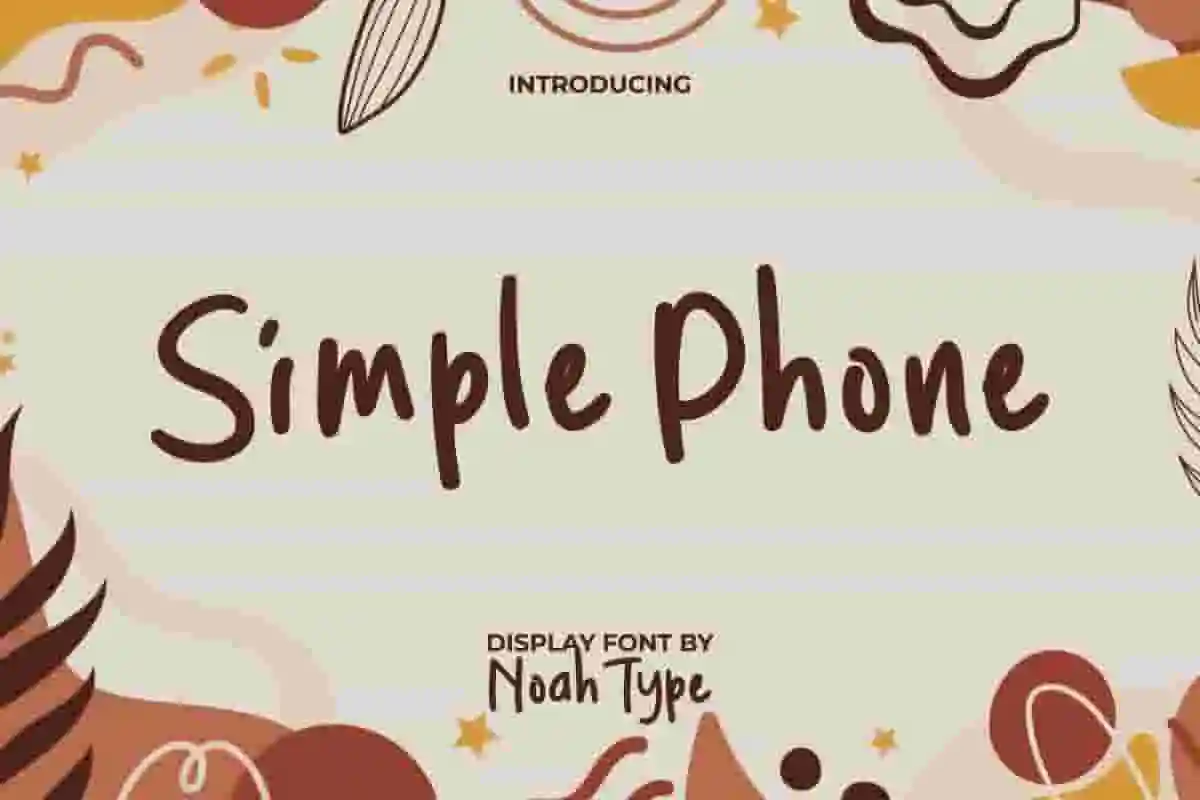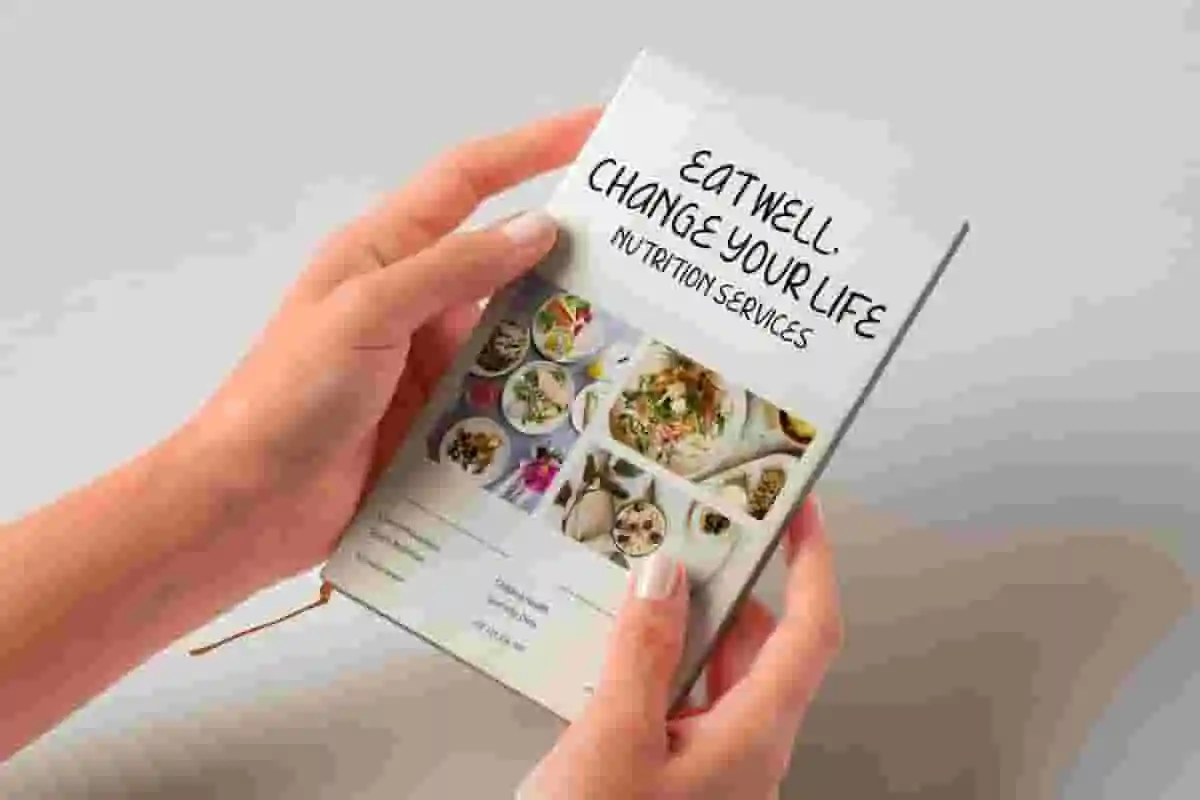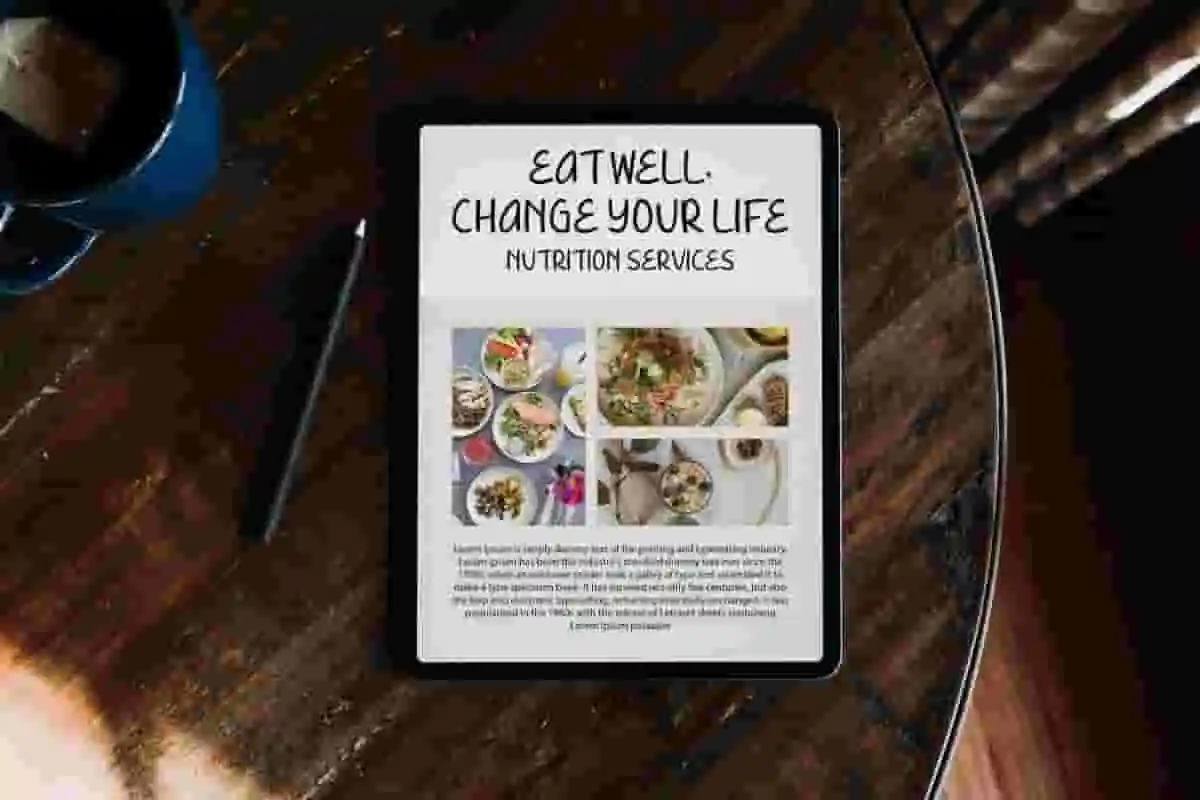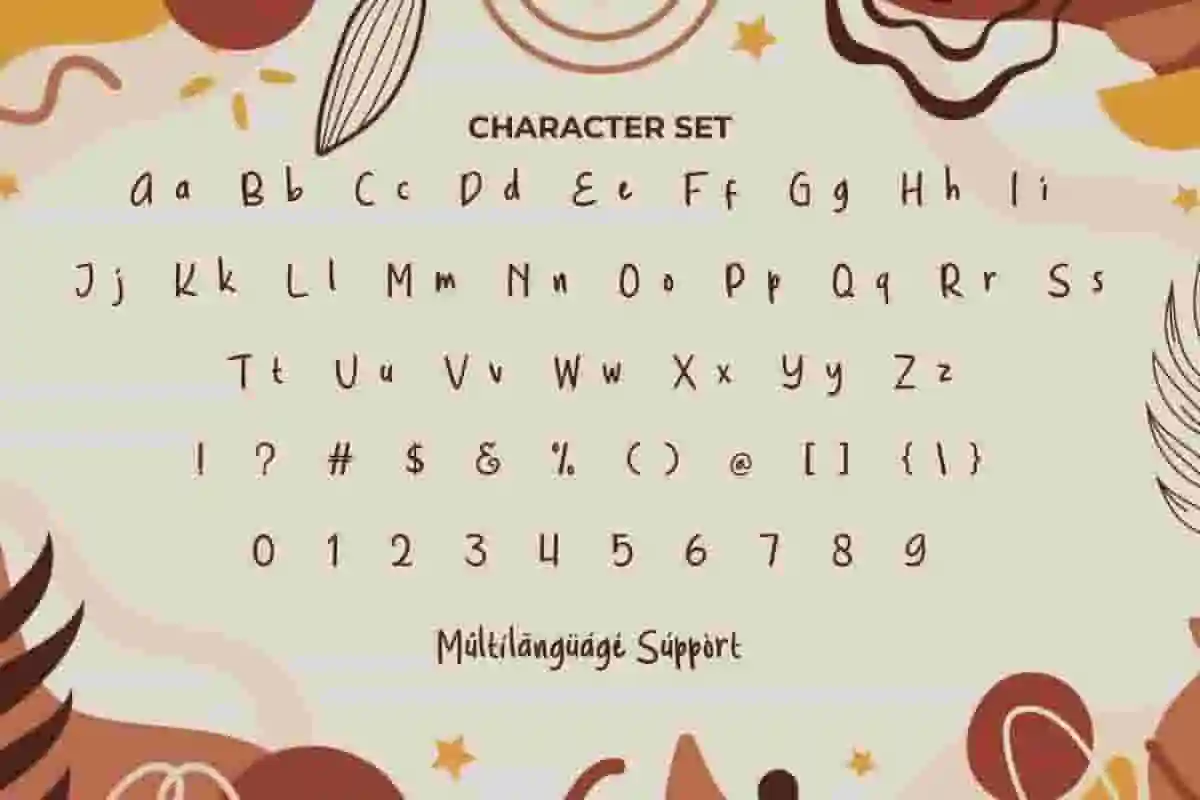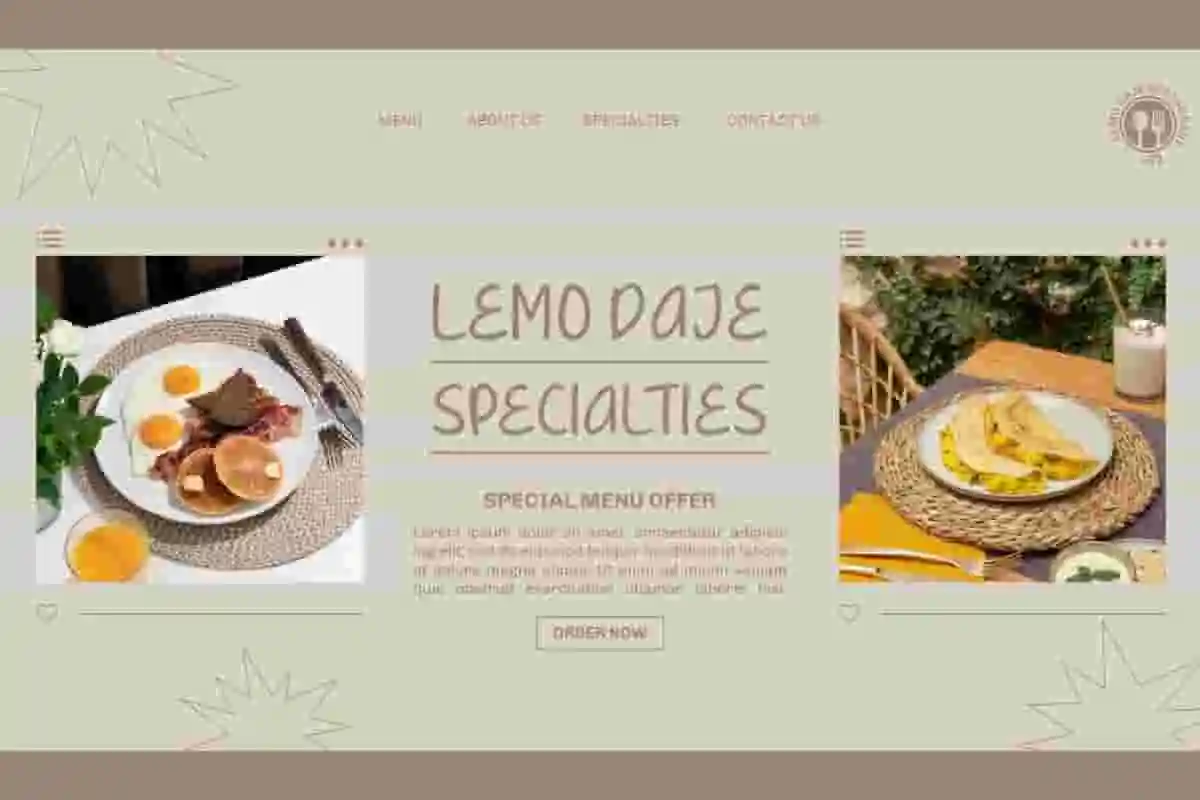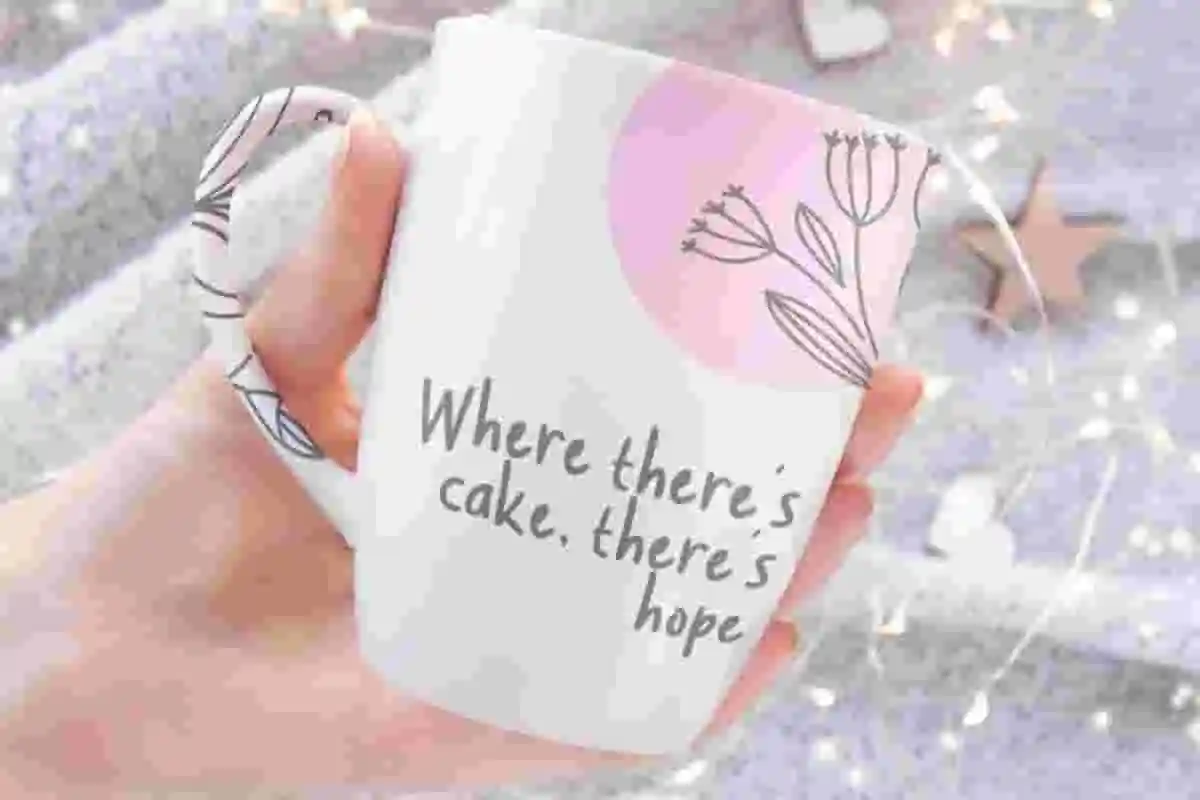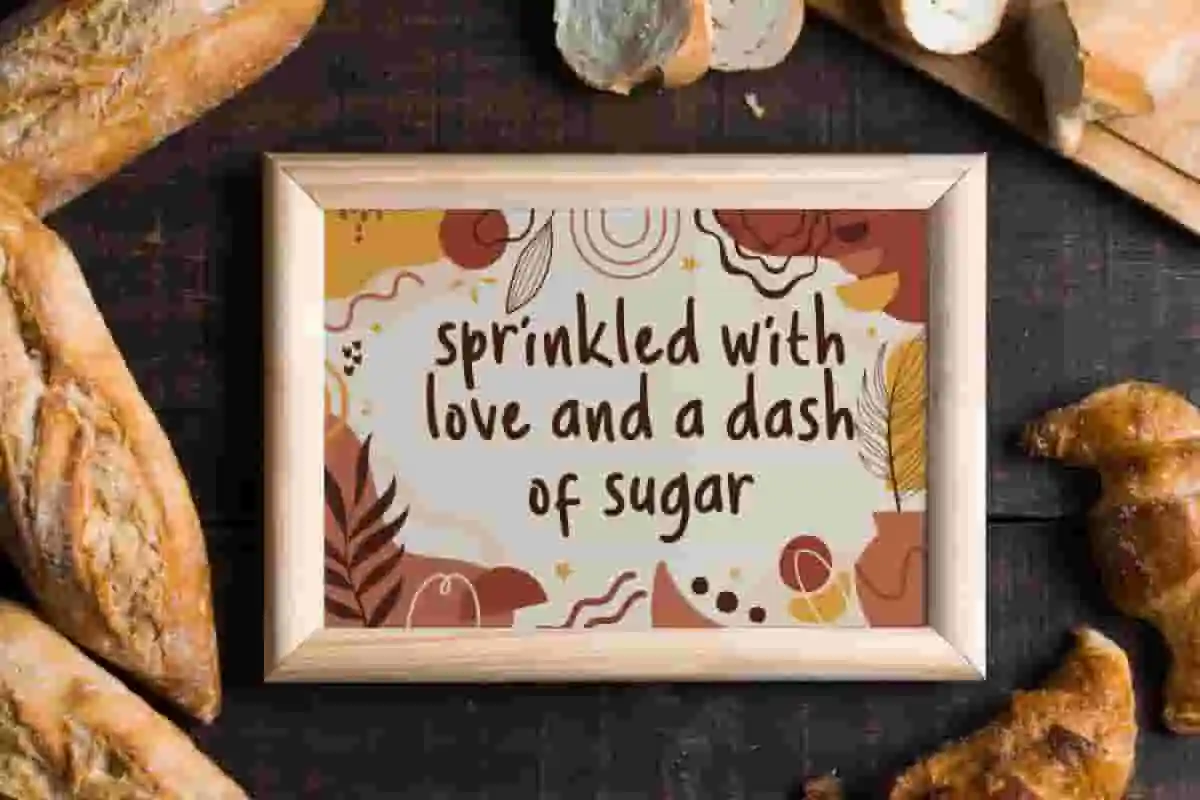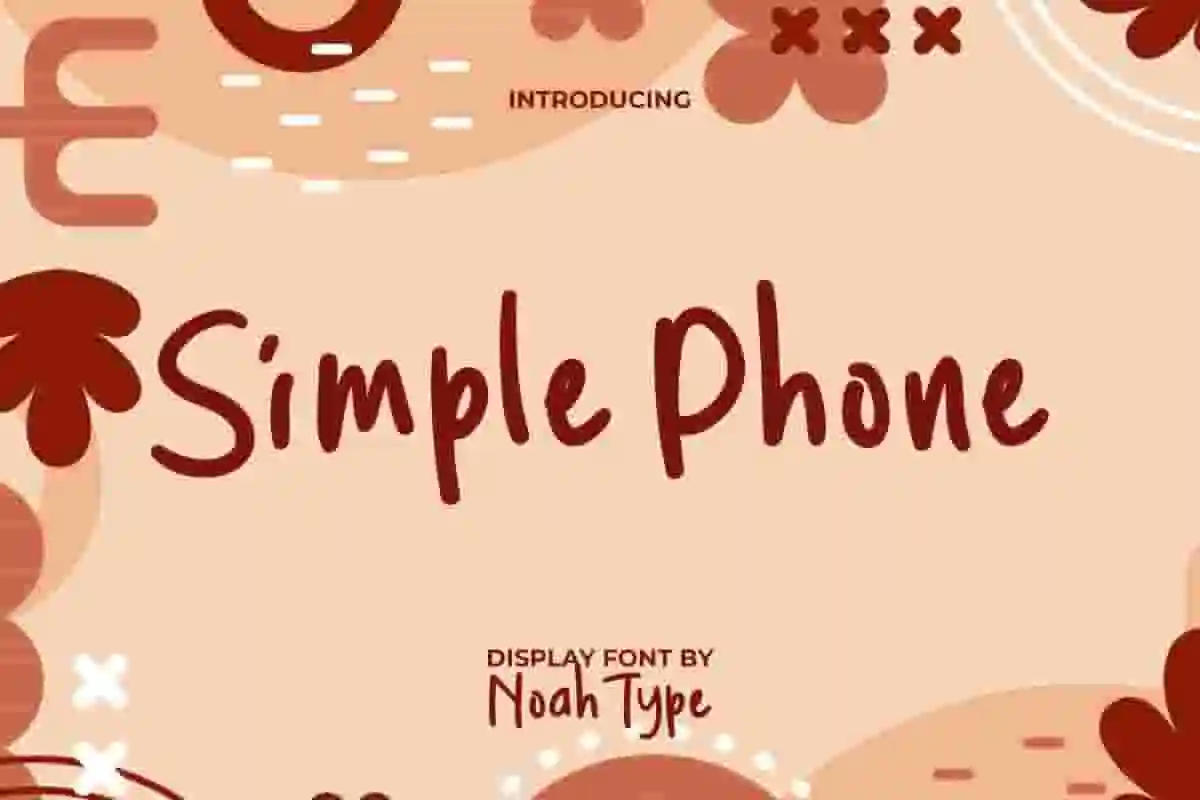
Simple Phone Font is a stylish handwritten display font with a fun concept by NoahType Studio. This font can add a natural impression with the charm that each character has. It will be perfect for any designs, such as cover, invitation, brand image, custom design, label, marketing material, menu, poster, product packaging, quotes, signage, stationery, web, and many more!
Simple Phone Font includes full set of Uppercase and Lowercase Basic Characters, Numerals, Punctuation, and Symbol. This adorable font will be perfect choice for many industries, such as advertising, bakery and pastry, cafe, event or festival, furniture, photography, printing, publishing, etc.